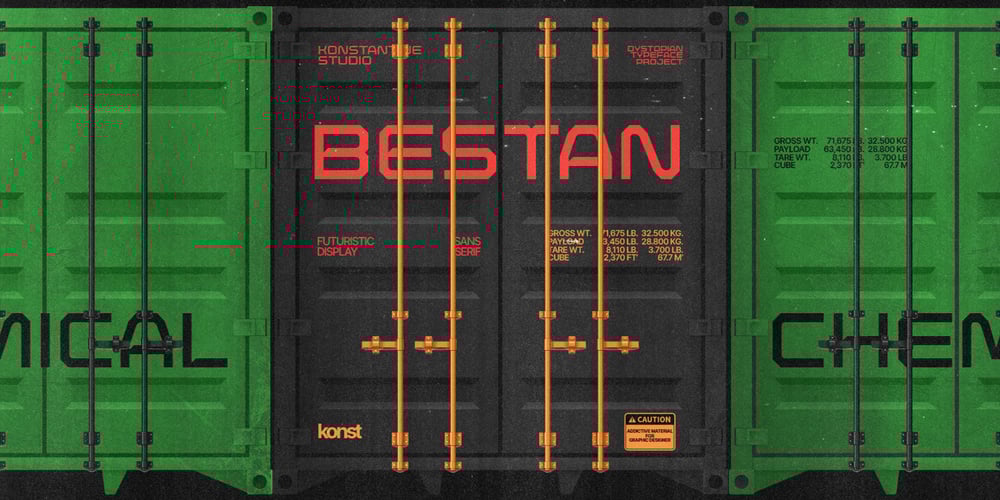
Bestan
Bestan font
Bestan Font Family was designed by Abdilah and published by Konstantine Studio. Bestan contains 1 styles and family package options. Bestan is inspired by the typography of the ship’s steel containers and industrial-based business branding. Added a slight touch of futuristic vibes to make Bestan appears as a fresh game-changer, either for corporation purpose and also modern urban vibes to your visual graphic design stuff.